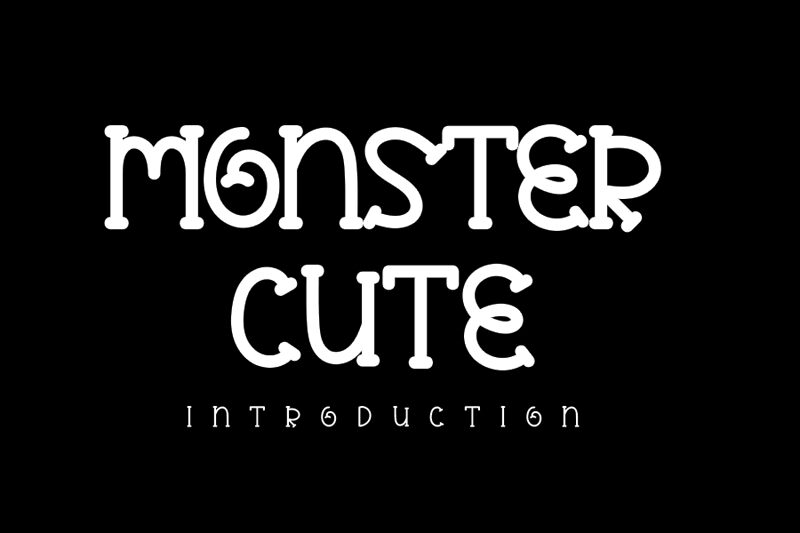
MONSTER CUTE
Monster Cute, crafted by Inermedia Studio, is a display font that embodies playful charm and whimsical appeal. With its cartoon style, this semi-light typeface boasts friendly curves and bubbly forms that evoke a sense of fun and creativity. The aesthetic allure of Monster Cute lies in the balance between its lighthearted appearance and legible design, making it an excellent choice for various creative projects.
Whether you're designing children's books, party invitations, or branding for family-friendly products, Monster Cute adds a delightful touch without compromising on clarity. Its suitability for eye-catching headlines and unique logos ensures that your designs will stand out with personality and warmth. Embrace the lightheartedness of Monster Cute to infuse your projects with its uniquely joyous character.